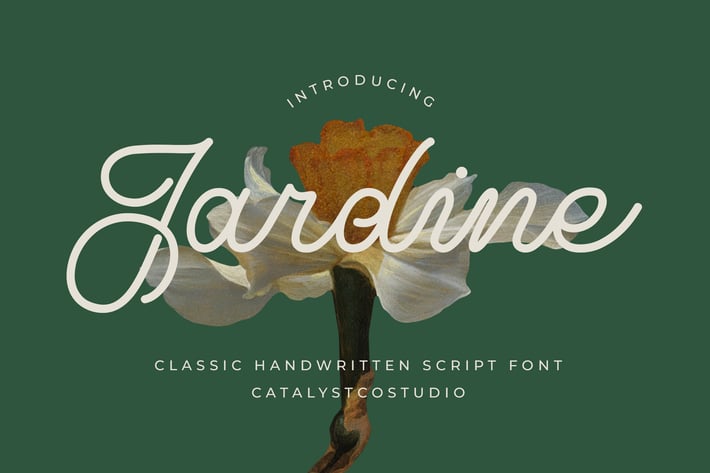
Jardine Classic Handwritten Script Font
Jardine Classic Handwritten Script Font is a classic handwritten script font featuring elegant curves, natural swashes, and a refined flow that brings sophistication to any design. Its style is perfect for wedding fonts, signature logo, feminine branding, or upscale product packaging. Jardine evokes timeless beauty and personal charm, ideal for designers seeking an authentic elegant script with a handcrafted feel. With multilingual support and graceful ligatures, Jardine is also a strong choice for invitations, stationery, and other luxury font needs with a soft, romantic aesthetic.
Main Features
Ligatures & Alternate
Numeral & Punctuations